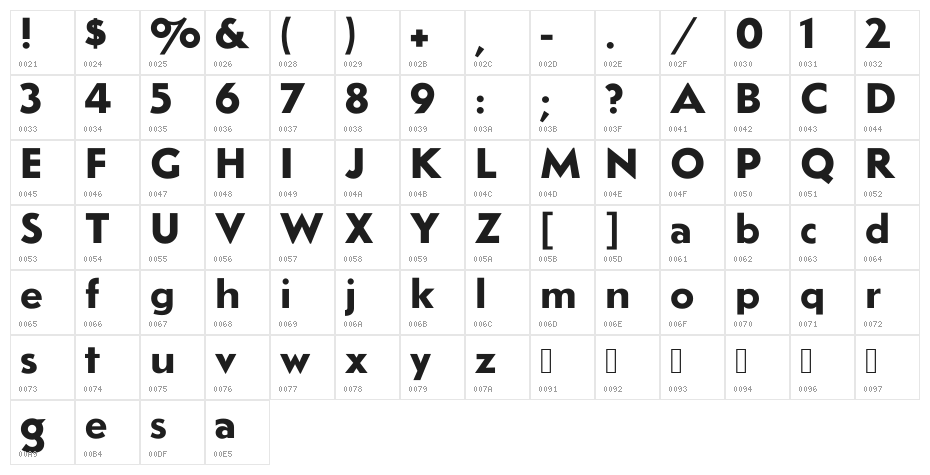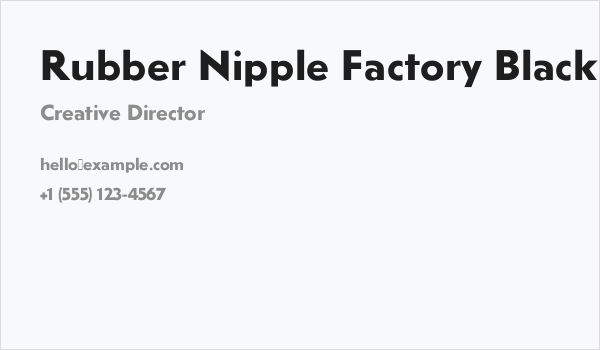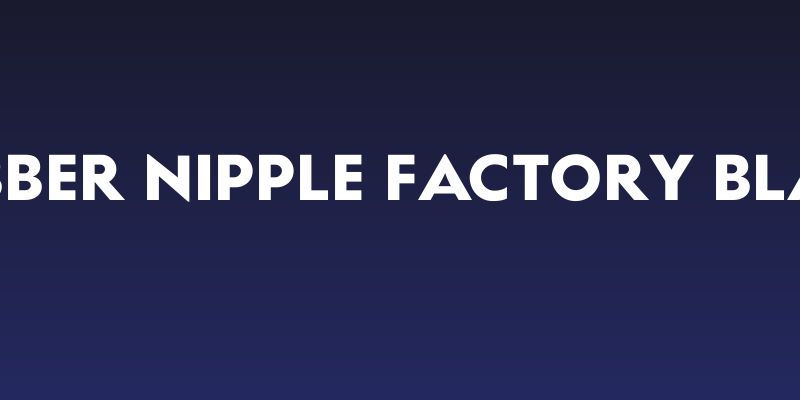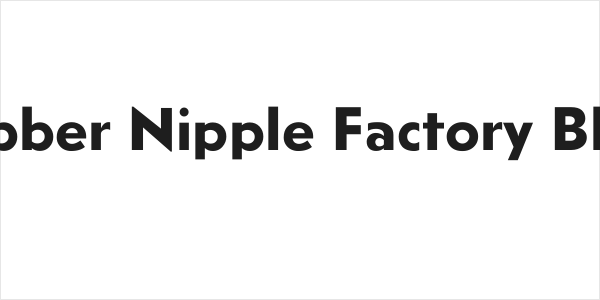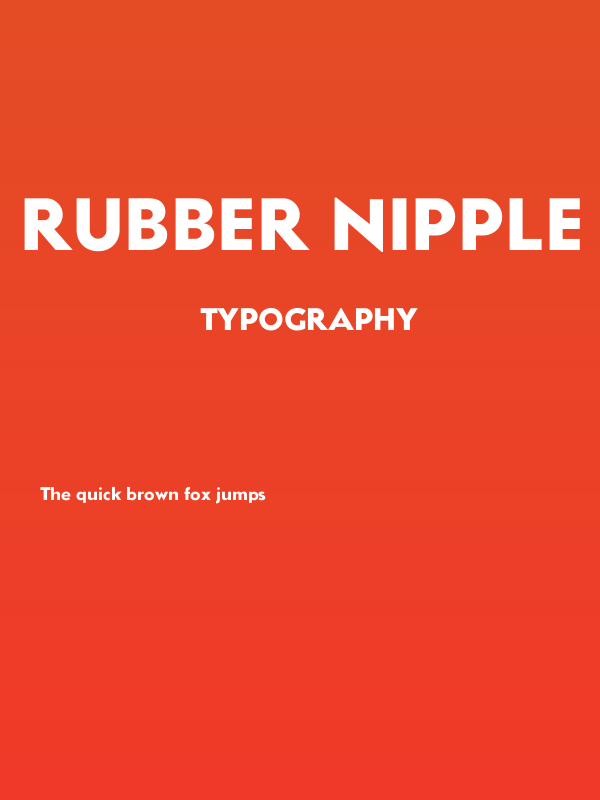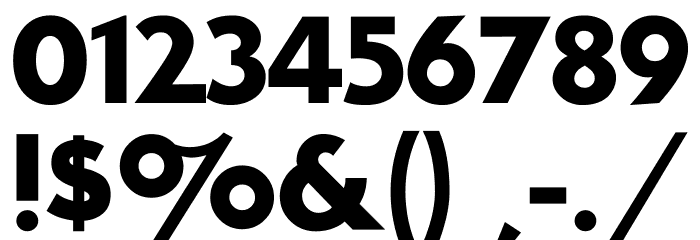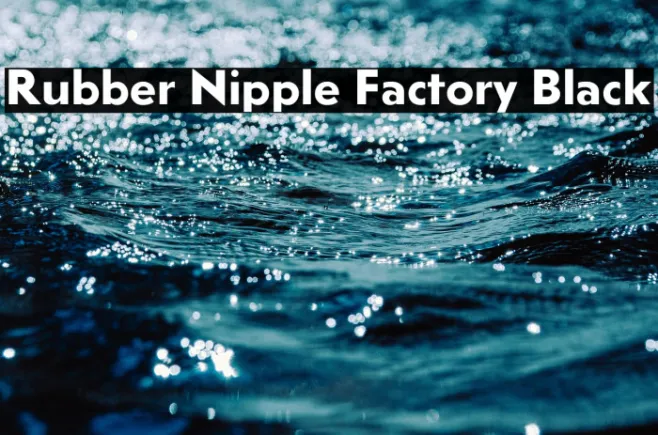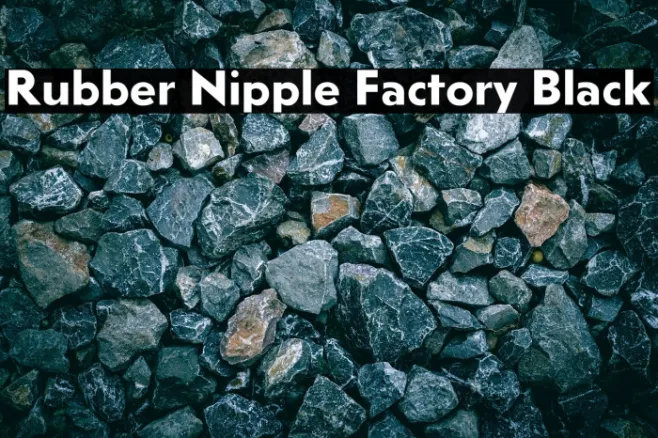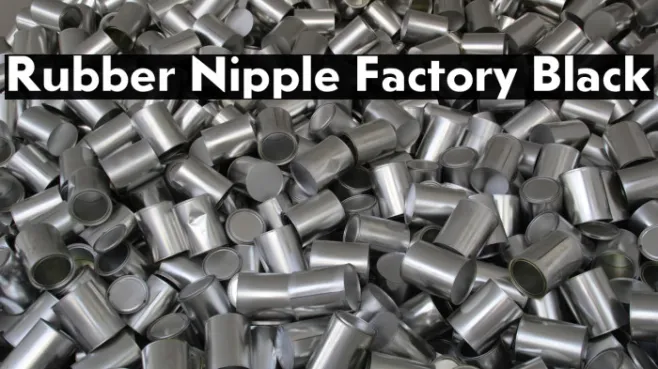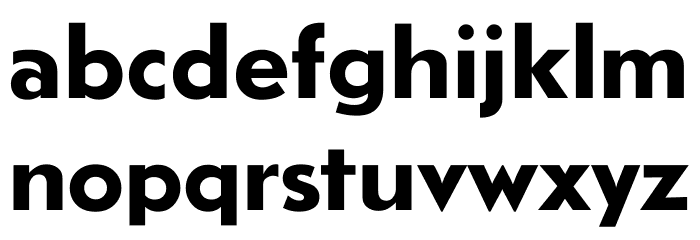
Rubber Nipple Factory Black Font
Rubber Nipple Factory Black Description
This font presents a bold and assertive style with strong geometric shapes and clean lines. The uppercase and lowercase letters maintain a consistent weight, providing a uniform appearance. The numerals are equally bold, ensuring readability and impact. Special characters are designed with the same attention to detail, making them stand out without overpowering the text. The overall design is modern and versatile, suitable for a variety of applications where clarity and boldness are required.
| Proposed Projects | Ideal for branding, headlines, posters, and any design requiring strong visual impact. |